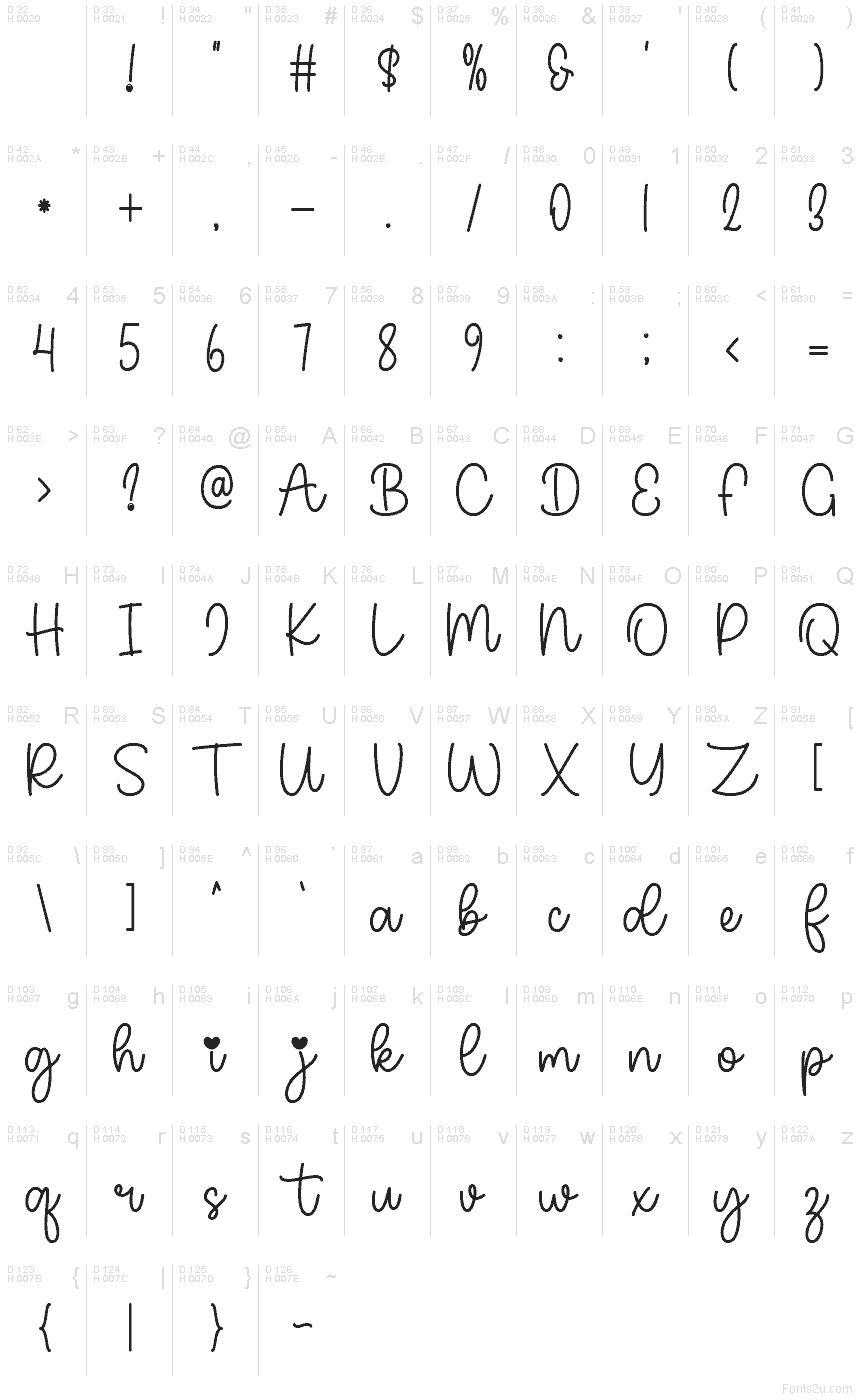
Line Love
Line Love font designed by Fillo Graphic is a free handwritten font with a casual style. A sweet heart accent design element accompanies several letters in writing, which contributes heavily to the overall welcoming feel of the style. It's a beautifully contemporary typeface that is stylish and instantly recognizable.
Include the latter in your invitations, personal branding, greeting cards, gift packages, postcards, social media posts, labels on home-baked items and more.